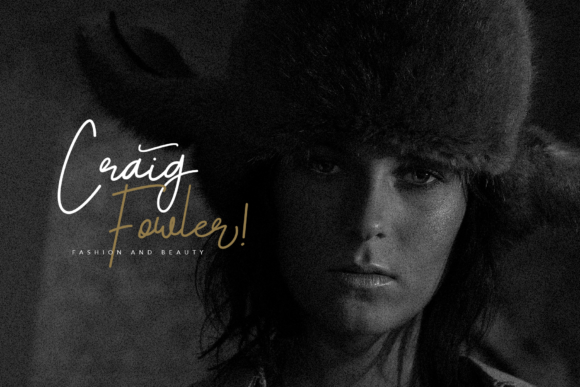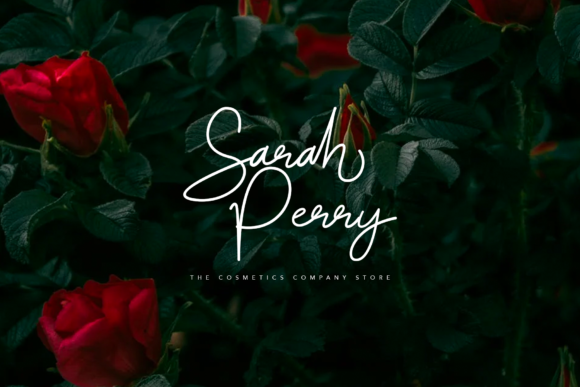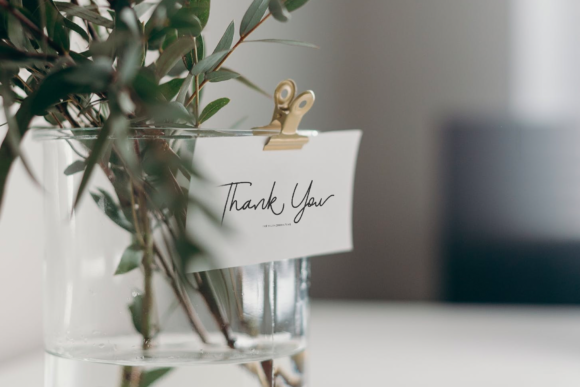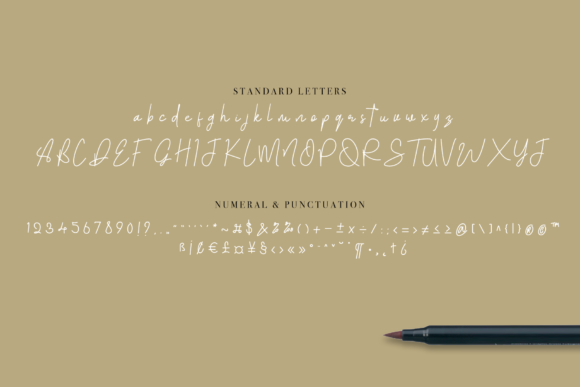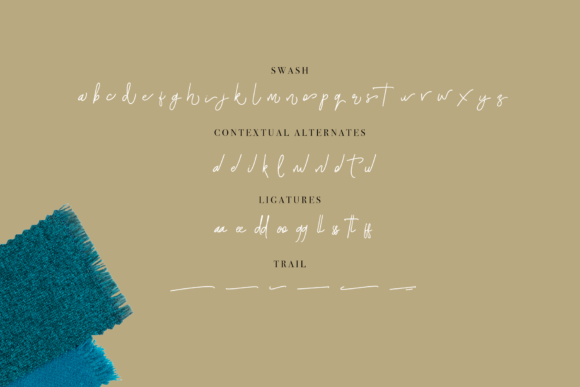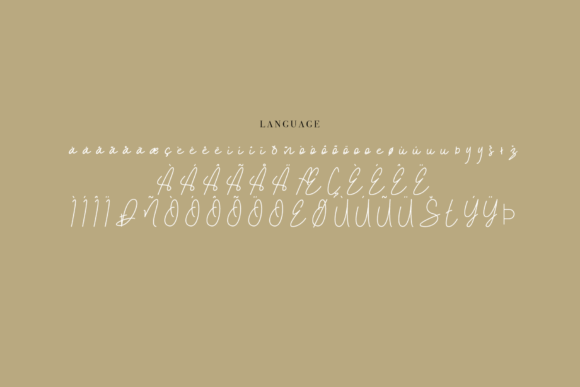
Introduction to Jongkeh Font
As a designer, you’ve probably had those moments when a perfect font can make all the difference in bringing your creative project to life. I recall one such moment when I was working on a branding project for a client, and I stumbled upon the perfect handwritten font – Jongkeh Font. Its flowing lines and smooth curves instantly gave my design a personal touch, and I knew I had to share it with the world.
That’s exactly why I’m excited to introduce you to the Jongkeh Font, a high-quality design resource that’s perfect for any creative project. With its unique and versatile style, you can use it for everything from blog posts to social media graphics, and even as a free download for your personal projects. One of the best things about Jongkeh Font is its transparency – you can easily access all of its glyphs and swashes with a simple click, thanks to its PUA encoding.
- Designed with a modern and sleek aesthetic, ideal for use in digital design, web design, and graphic design.
- Unique characteristic: a unique blend of modern and traditional design elements, making it a standout choice for creative projects.
Honest Review: Jongkeh Font
I recently had the chance to experiment with the Jongkeh Font, and I must say it’s been a great addition to my design resource library. This free download has impressed me with its unique blend of modern and traditional elements.
- The Jongkeh Font is highly customizable, making it perfect for creative projects that require a personal touch.
- The high quality of the font is evident in its crisp lines and clear typography, making it ideal for both digital and print media.
- The transparent background allows for seamless integration with any design, giving me the flexibility to experiment with different backgrounds and layouts.
- The font library is limited, which may not be suitable for large-scale projects that require a wide range of font styles.
- The font may not be as versatile as some of the more popular design fonts on the market, which could limit its appeal to some designers.
Overall, I’m quite impressed with the Jongkeh Font, and I think it’s a great addition to any designer’s library. While it may have some limitations, its unique style and high quality make it a great resource for creative projects.
To get the most out of the Jongkeh Font, use it with a transparent background to create a clean and modern design. You can also experiment with different font sizes and styles to add visual interest to your project.
The Jongkeh Font is perfect for a variety of creative projects, including logos, business cards, and social media graphics. Its high-quality design makes it an ideal choice for any project where a professional look is desired.